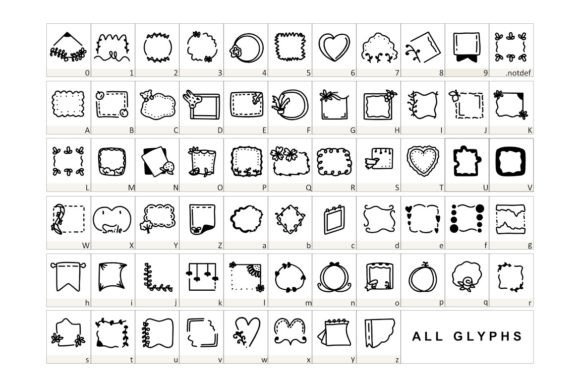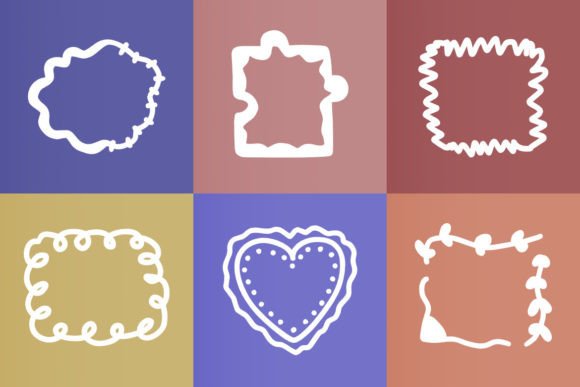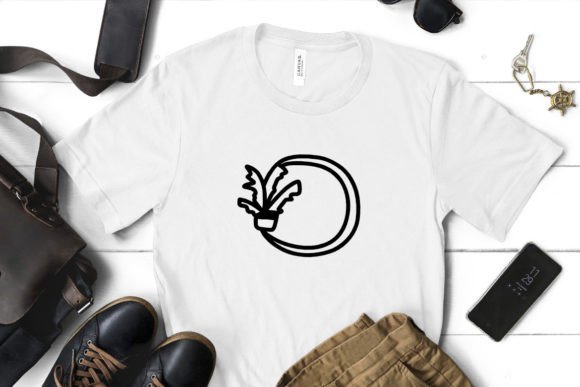
Introducing Good Day Font: The Perfect Dingbats Font for Your Creative Projects
Are you a designer, crafter, or DIY enthusiast looking for a unique and versatile font to elevate your projects? Look no further than Good Day Font, a delightful dingbats font that’s perfect for a wide range of creative endeavors. In this article, we’ll explore the features and benefits of Good Day Font, and show you how it can add a touch of charm and personality to your designs.
What is Good Day Font?
Good Day Font is a carefully crafted dingbats font that’s designed to bring a smile to your face. With its playful and cheerful vibe, this font is ideal for creating eye-catching stickers, posters, t-shirts, cards, and apparel graphics that are sure to delight your audience. Whether you’re a seasoned designer or a crafty DIY enthusiast, Good Day Font is a valuable addition to your font collection.
Key Features of Good Day Font
- Cute and Playful Design: Good Day Font features a unique and adorable design that’s sure to capture the attention of your audience.
- Versatile and Multi-Purpose: This font is perfect for a wide range of projects, from stickers and posters to t-shirts and apparel graphics.
- Easily Readable: Despite its playful design, Good Day Font is easy to read and understand, making it perfect for use in various contexts.
Benefits of Using Good Day Font
So, why choose Good Day Font for your projects? Here are just a few benefits of using this amazing dingbats font:
- Adds a Personal Touch: Good Day Font adds a personal touch to your designs, making them more relatable and engaging.
- Boosts Creativity: With its unique and playful design, Good Day Font can inspire creativity and help you think outside the box.
- Enhances Brand Identity: Good Day Font can help you create a consistent brand identity that reflects your personality and style.
Examples of Good Day Font in Action
Good Day Font is a versatile font that can be used in various contexts. Here are a few examples of how you can use it:
- Stickers: Create eye-catching stickers for parties, events, or promotional campaigns.
- Posters: Design vibrant posters for advertising, marketing, or informational purposes.
- T-Shirts: Create custom t-shirts for events, promotions, or everyday wear.
- Cards: Design personalized cards for birthdays, holidays, or special occasions.
In conclusion, Good Day Font is a delightful dingbats font that’s perfect for designers, crafters, and DIY enthusiasts. With its cute and playful design, versatility, and ease of use, Good Day Font is an excellent addition to any font collection. Whether you’re working on stickers, posters, t-shirts, or cards, Good Day Font is sure to bring a touch of charm and personality to your designs.